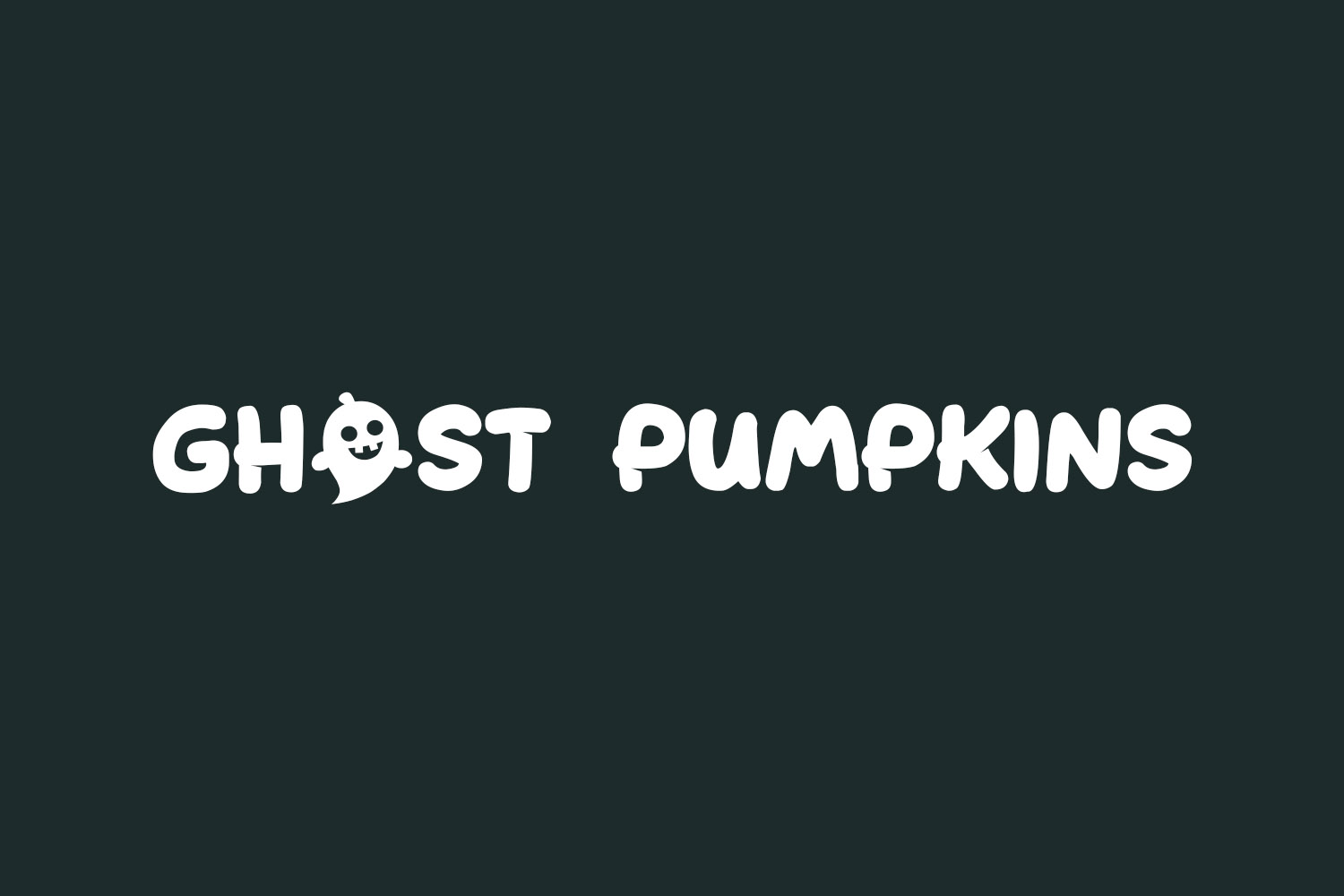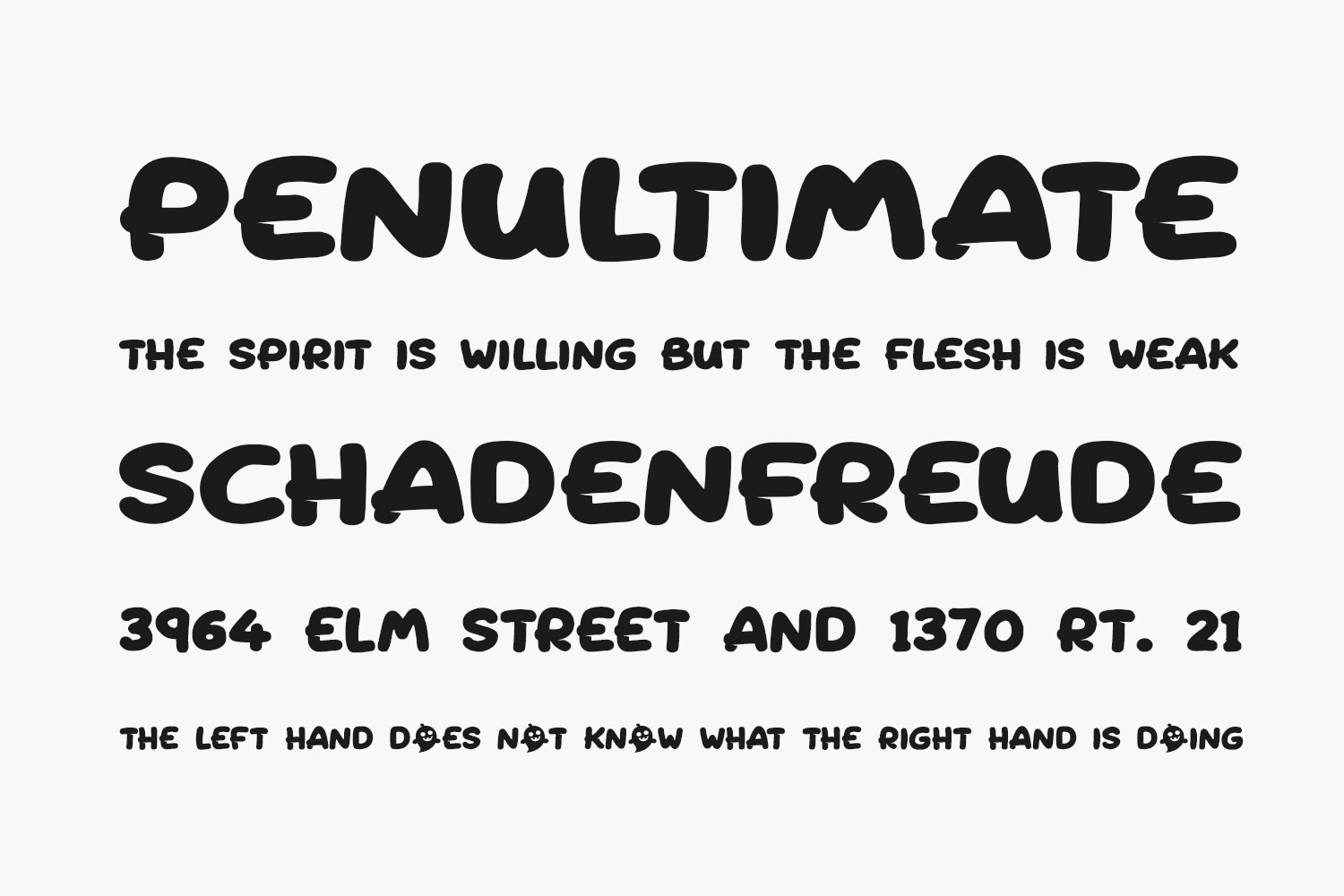
Ghost Pumpkins Free Font Family is a playful, cartoon-style font designed for Halloween with a bouncy, decorative vibe. Featuring three adorable ghost pumpkin characters, it’s an ideal choice for Halloween parties, events, family-friendly horror themes, and versatile all-purpose use. Ghost Pumpkins Free Font is free for personal use only. Please purchase the full version for commercial use.